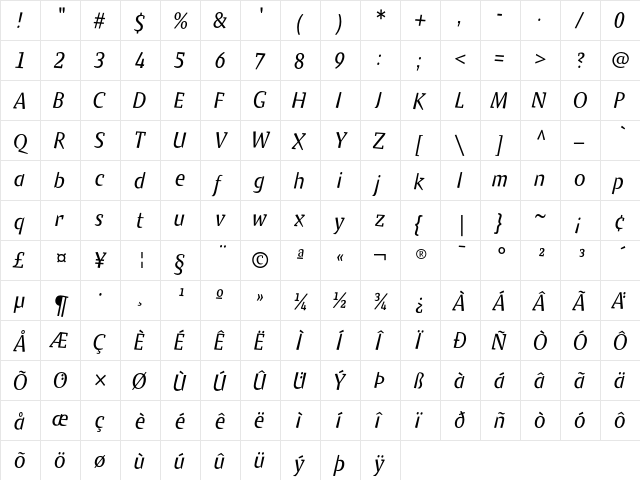
KeuleSemiSerifEF RegularItalic
Design Context for KeuleSemiSerifEF Typeface
KeuleSemiSerifEF carries the refined structure of traditional serif typography, with bracketed terminals and considered proportions that communicate credibility and craft. The slanted form adds forward momentum and visual energy.
Pro Tip: Use KeuleSemiSerifEF for editorial body copy and considered headline work. Pair with a neutral sans for UI elements or captions to create a classic hierarchy.